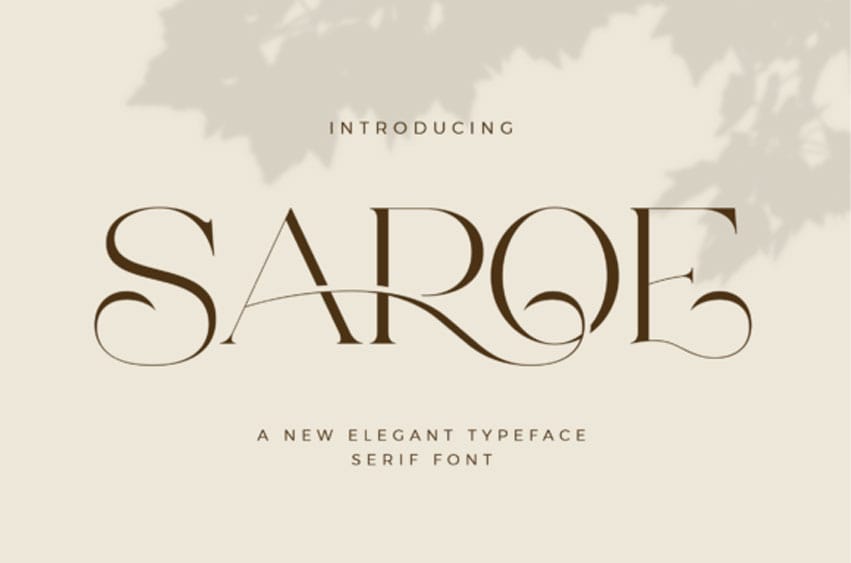
Saroe Font is a stylish serif inspired by the famous minimalist logo, perfect for the purposes of designing templates, brochures, videos, advertising branding, logos, and more.